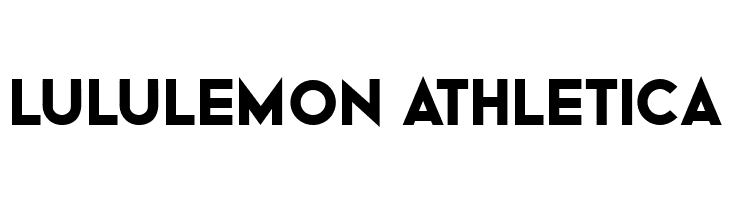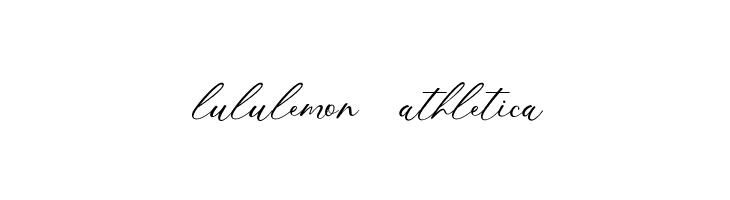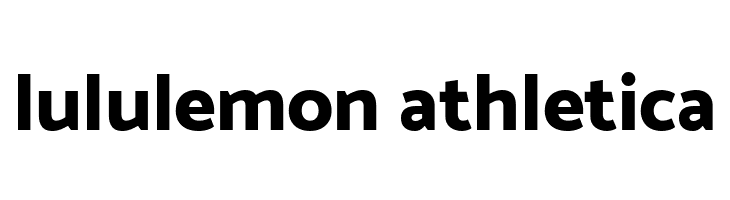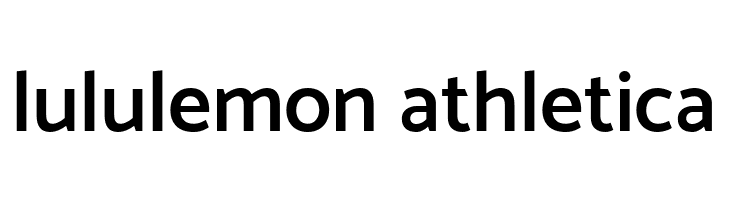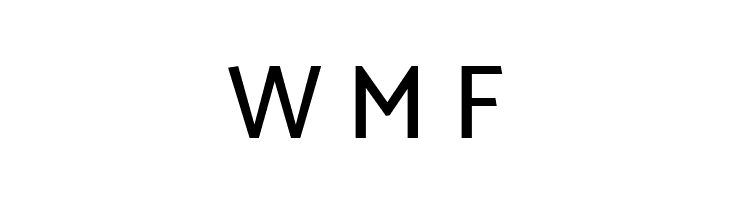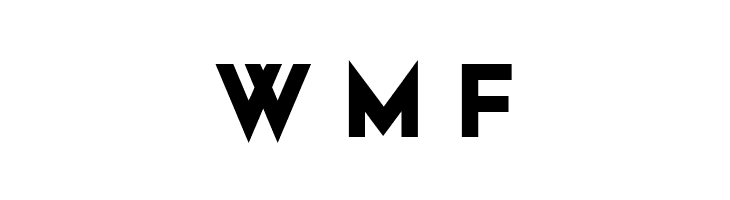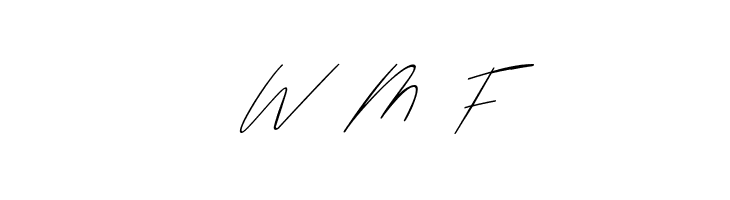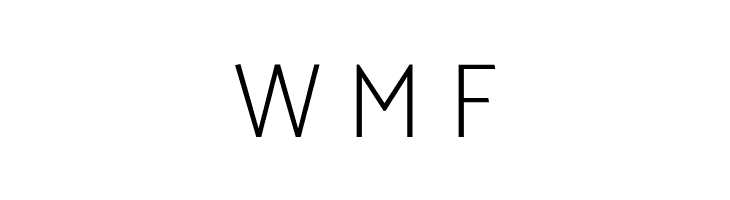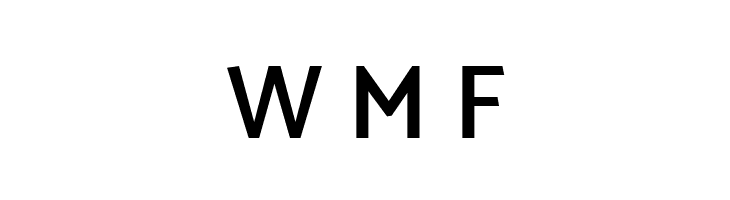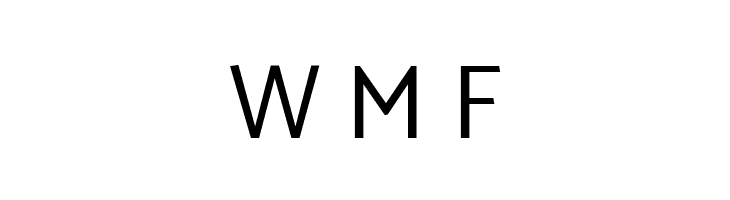
A bold, modern sans-serif typeface with excellent readability and versatility.
A clean, modern sans-serif font with uniform stroke width and rounded edges.
A modern, geometric sans-serif font with clean lines and uniform stroke widths.
A modern geometric sans-serif font with clean lines and balanced characters.
A modern, geometric sans-serif typeface with uniform stroke widths and rounded edges.
A modern, geometric sans-serif font with uniform stroke widths.
A modern, geometric sans-serif font with clean lines and uniform strokes.
A clean, modern typeface with uniform stroke width and excellent readability.
A modern, thin sans-serif font with a clean and elegant design.
A sophisticated script font with elegant, flowing cursive letterforms.